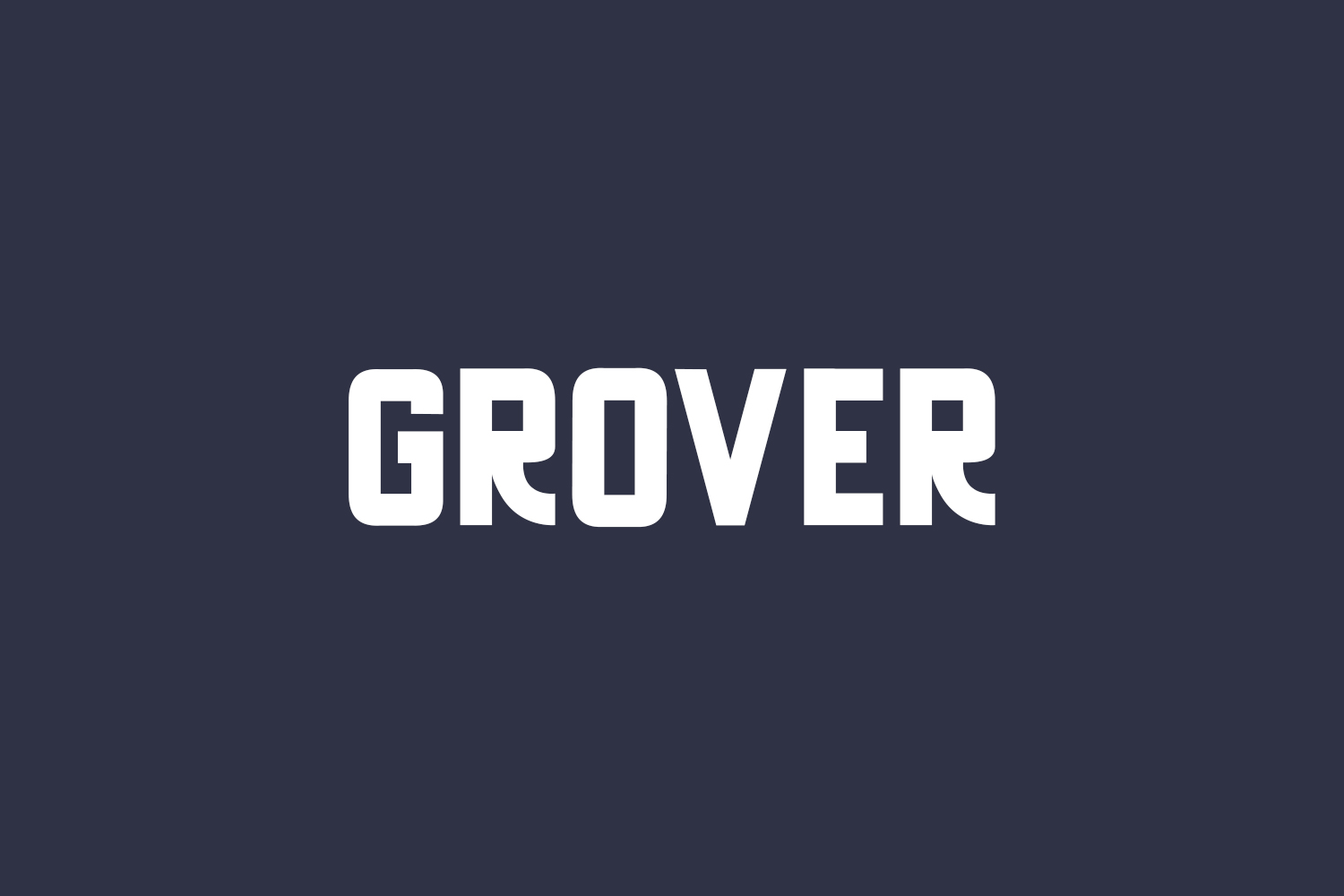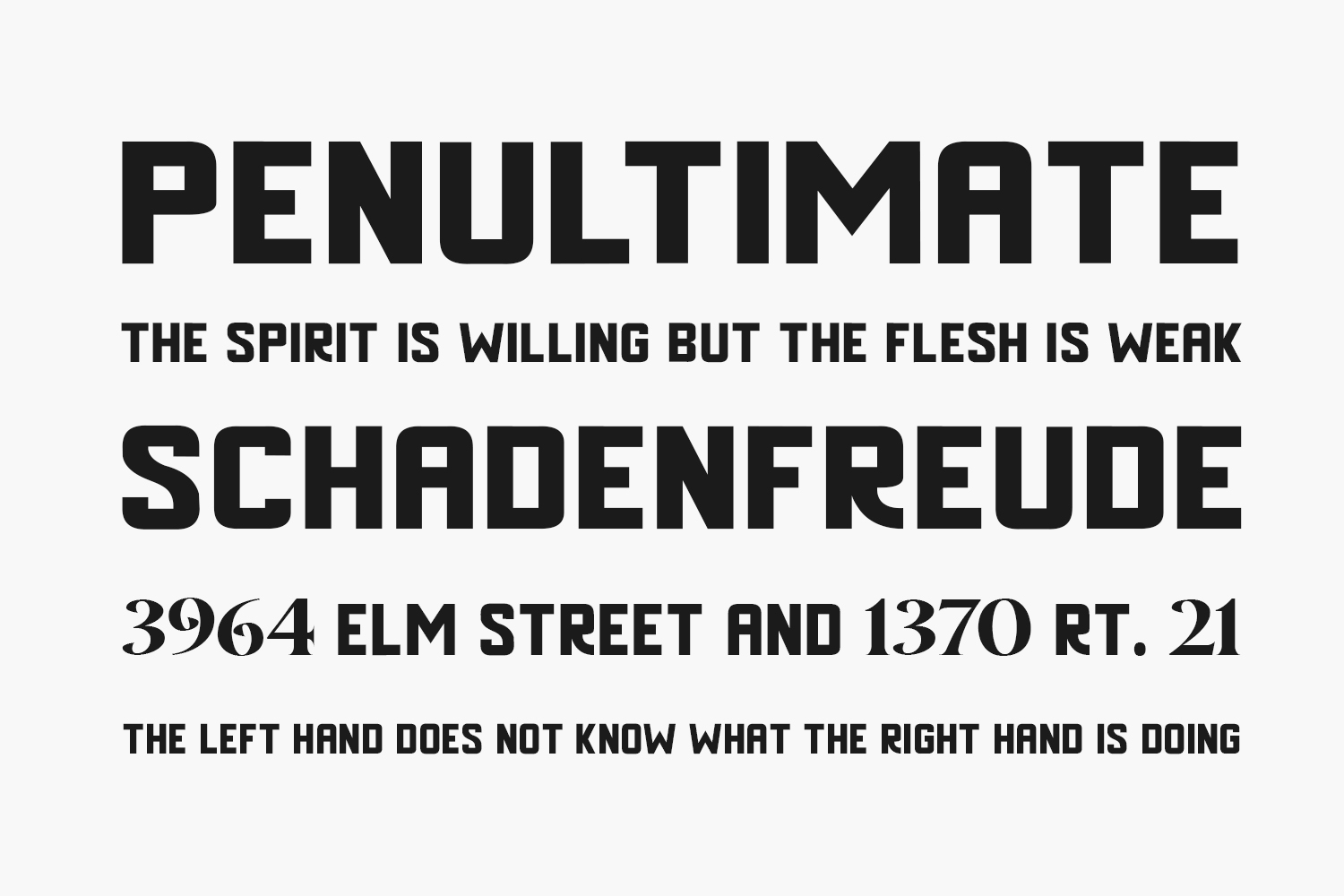
Grover Free Font is a bold and powerful display font. Its casual charm makes it appear wonderfully down-to-earth, readable, and, ultimately, incredibly
versatile. Grover will look outstanding in any context, whether it’s being used on busy backgrounds or as a standalone headline. Grover Free Font was designed by Yumna Family is a demo and free for personal use only. Please purchase the full version for commercial use.